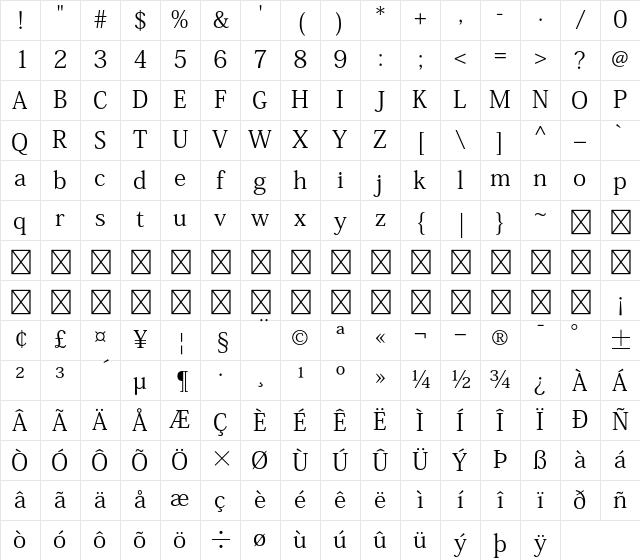
Complete Ryo Text PlusN R glyph index. Displaying only characters natively supported by Ryo Text PlusN R font.
Ryo Text PlusN is a composed and adaptable typeface that performs quietly and consistently across a wide range of design contexts.